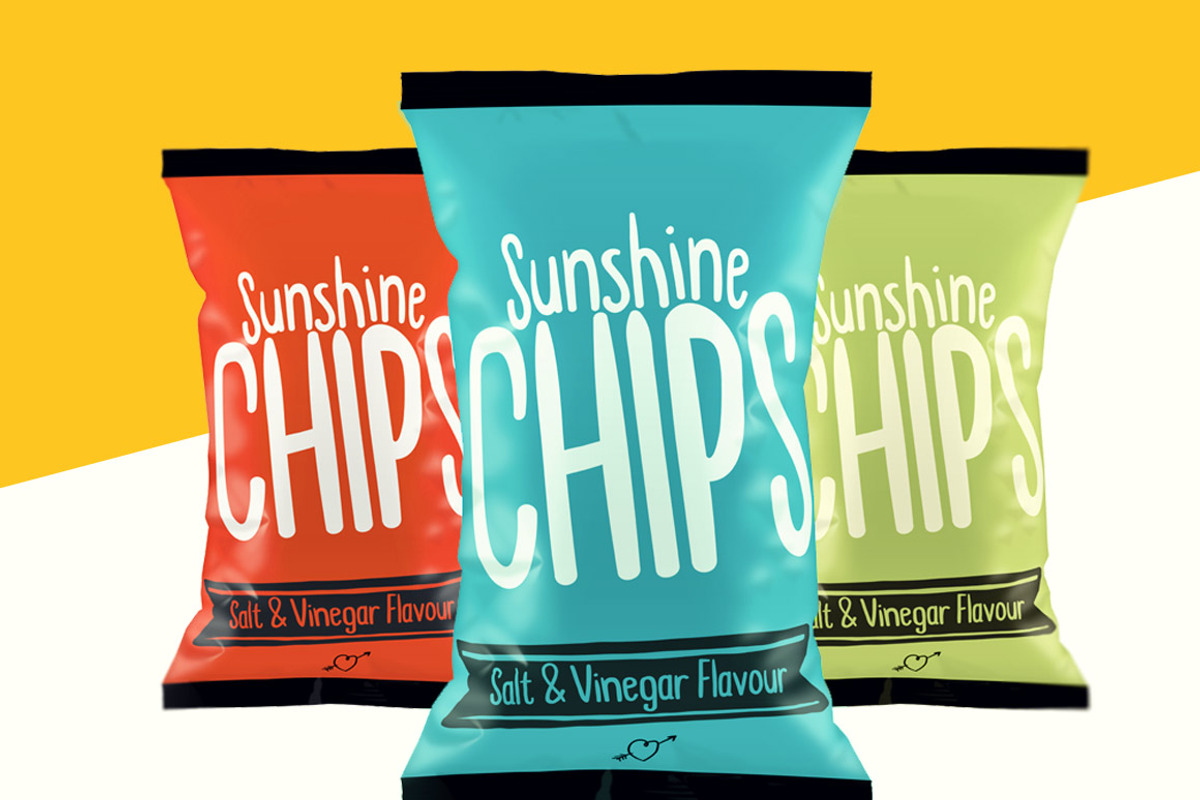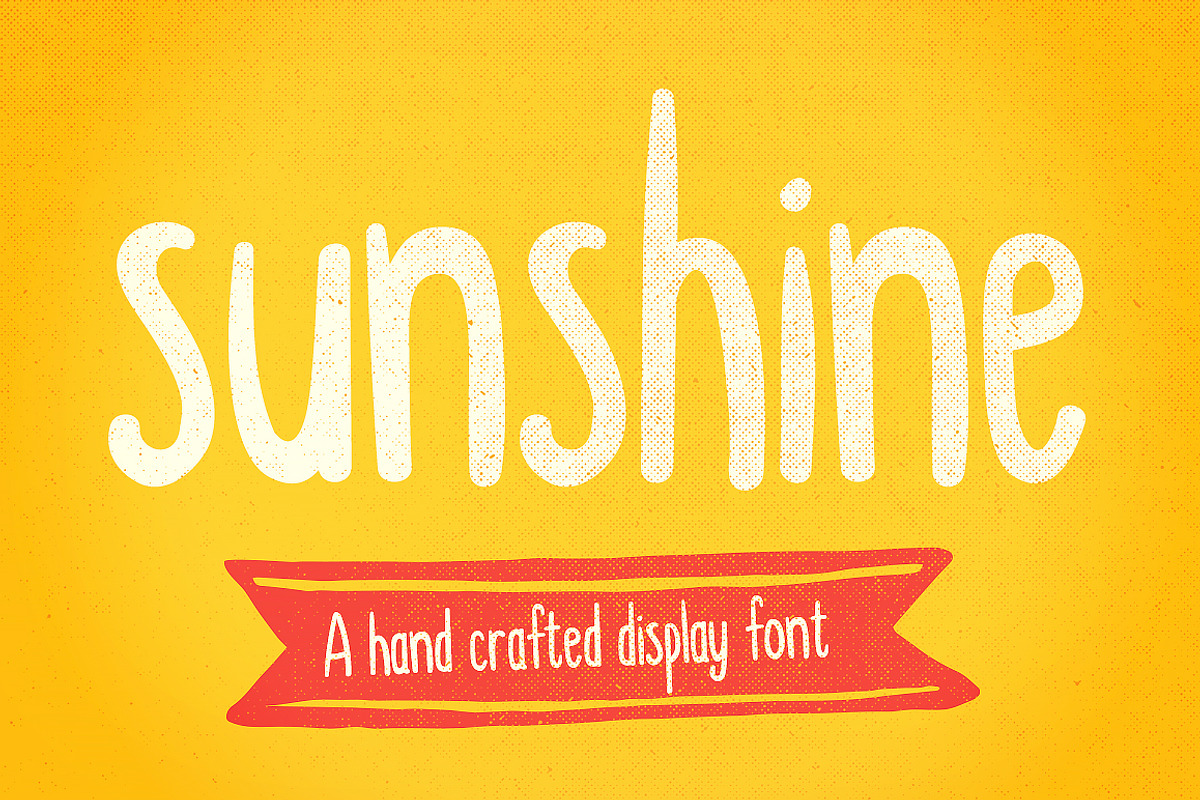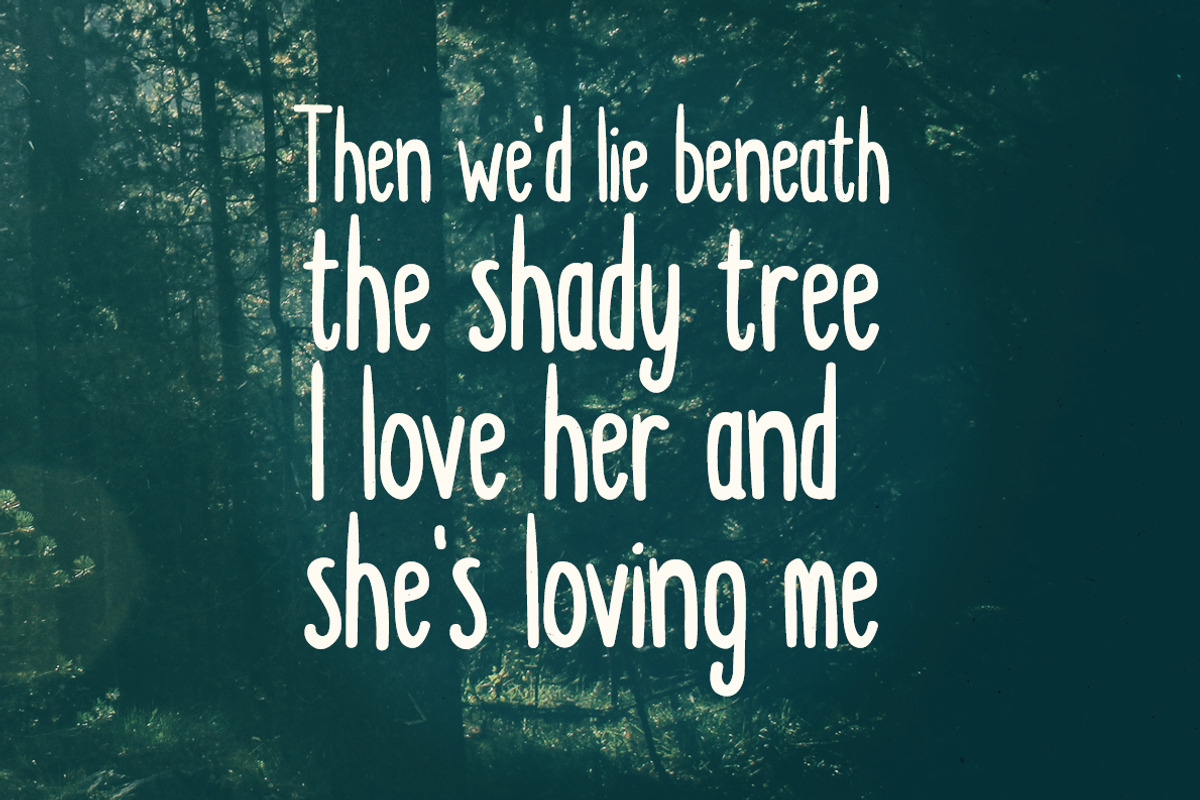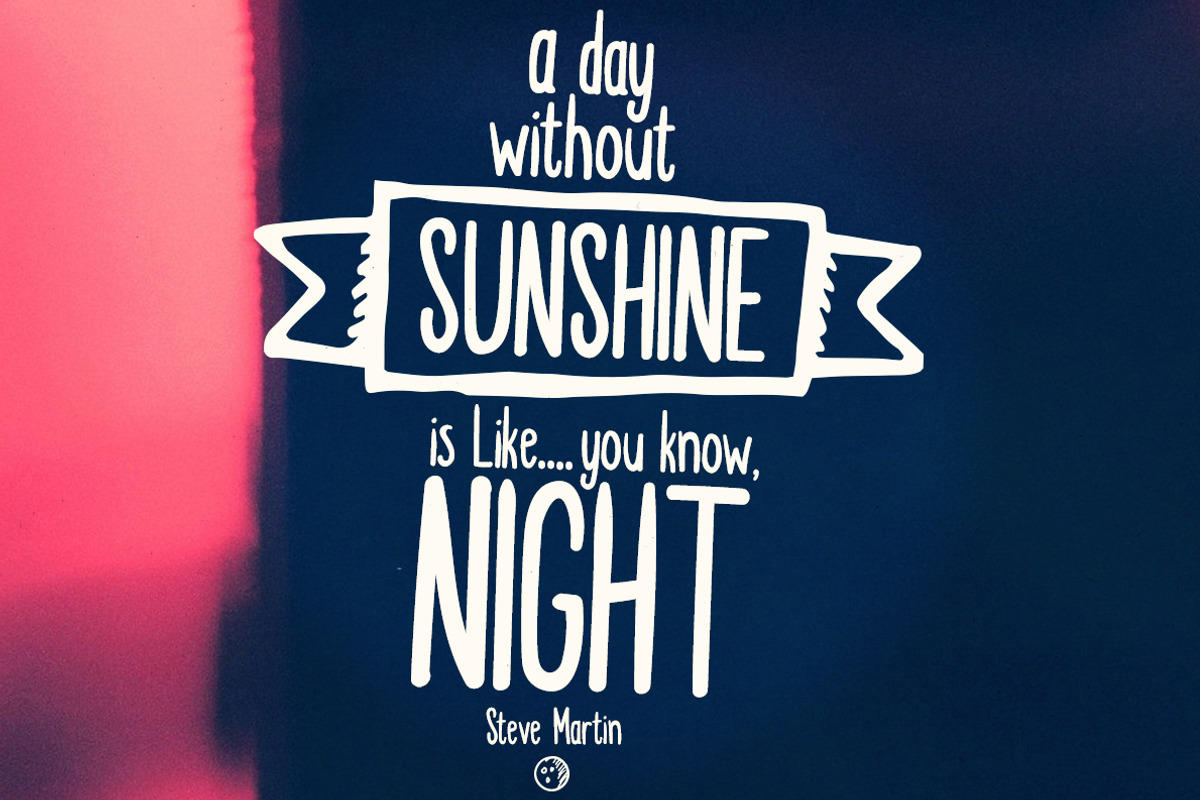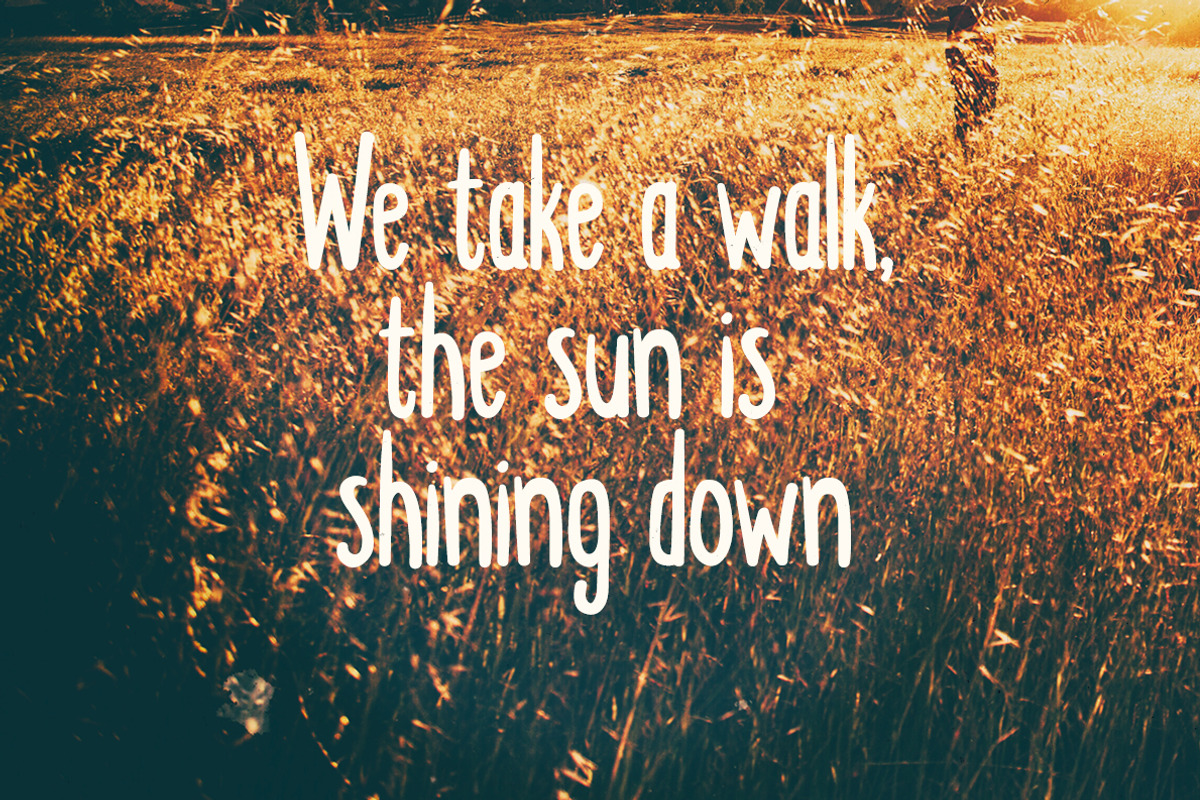
Display font Sunshine hand drawn
Display font Sunshine font, a fun, bold and bouncy hand drawn typeface that will bring the fun back into your design work. It's 100% handmade.
Usage
Ideal for fun bold designs to give that hand drawn lettering feel. It would work well on packaging, children's books, logo's and anything that needs to draw attention to itself—in an informal way.
Flavours
Sunshine now has 3 weights, Light, Medium and bold. It includes upper and lowercase characters, numbers, symbols, punctuation and includes all western European characters (Over 300 Glyphs in total).
- Sunshine Light
- Sunshine Medium
- Sunshine Bold